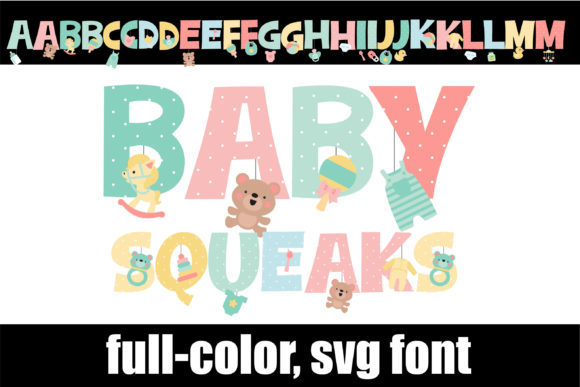
Unleash the Magic of Baby Squeaks Font: A Colorful Symphony for Your Creative Endeavors
Welcome to the enchanting world of Baby Squeaks Font, where every letter dances with vibrant hues and playful baby motifs. This full-color font is a captivating masterpiece that will ignite your creativity and transform your designs into eye-catching works of art.
Baby Squeaks Font: A Symphony of Colors and Charm
Designed with love and attention to detail, Baby Squeaks Font is a feast for the eyes. Its pastel color palette, adorned with adorable baby toys and supplies, creates a playful and whimsical atmosphere that will add a touch of magic to your projects.
Let Your Imagination Take Flight
With Baby Squeaks Font, the possibilities are endless. Create personalized baby shower invitations that burst with joy, design charming posters for your little one's room, or craft enchanting social media posts that will captivate your audience. The whimsical nature of this font makes it perfect for adding a touch of whimsy and delight to any project.
A Font That Speaks to the Heart
The Baby Squeaks Font is more than just a collection of letters; it's an expression of love, joy, and the boundless imagination of childhood. Its playful design evokes feelings of nostalgia, innocence, and the unconditional love between parent and child. Use this font to create designs that speak to the heart and leave a lasting impression.
Unlock Your Creative Potential
Whether you're a seasoned designer or just starting your creative journey, Baby Squeaks Font is the perfect companion for your projects. Its user-friendly design makes it accessible to everyone, while its versatility allows you to explore a wide range of creative possibilities. Unleash your imagination and let Baby Squeaks Font guide you to new heights of creativity.